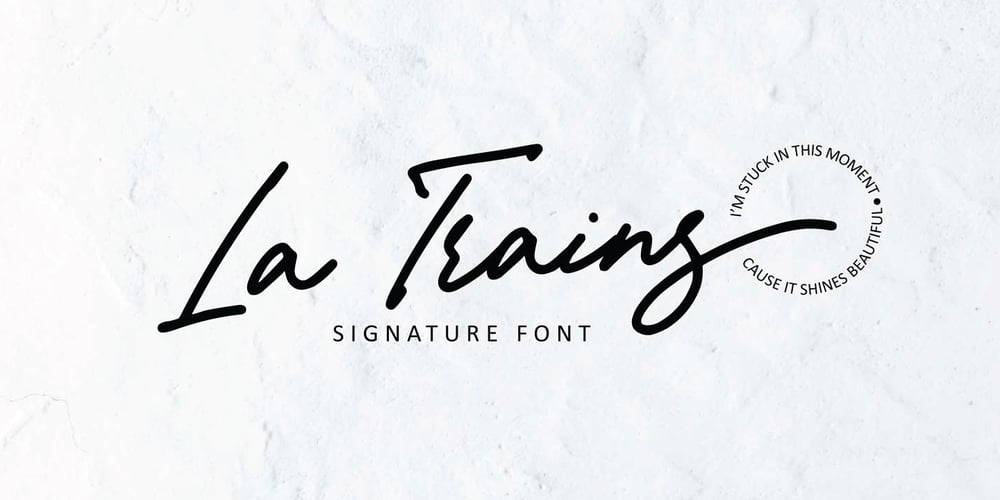
La Trains
La Trains font
La Trains Font Family was designed by Lia Almuknisa and published by Fromletterel. La Trains contains 1 styles and family package options. La Trains is a fashionable light handwritten font with a unique feel and a stunning impact. It will add a luxury spark to any design project you create, This font is PUA encoded which means you can access all of the amazing glyphs with ease .